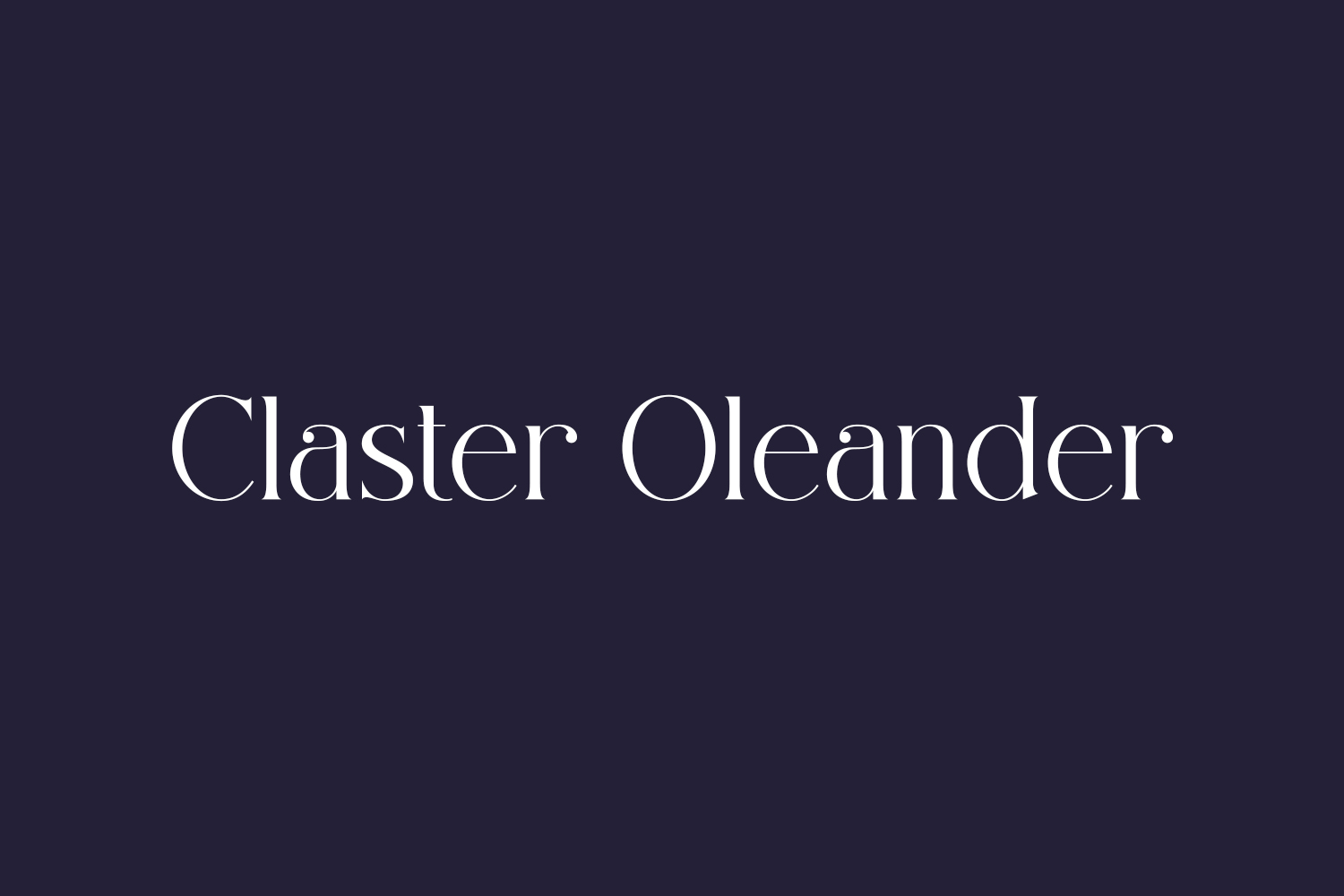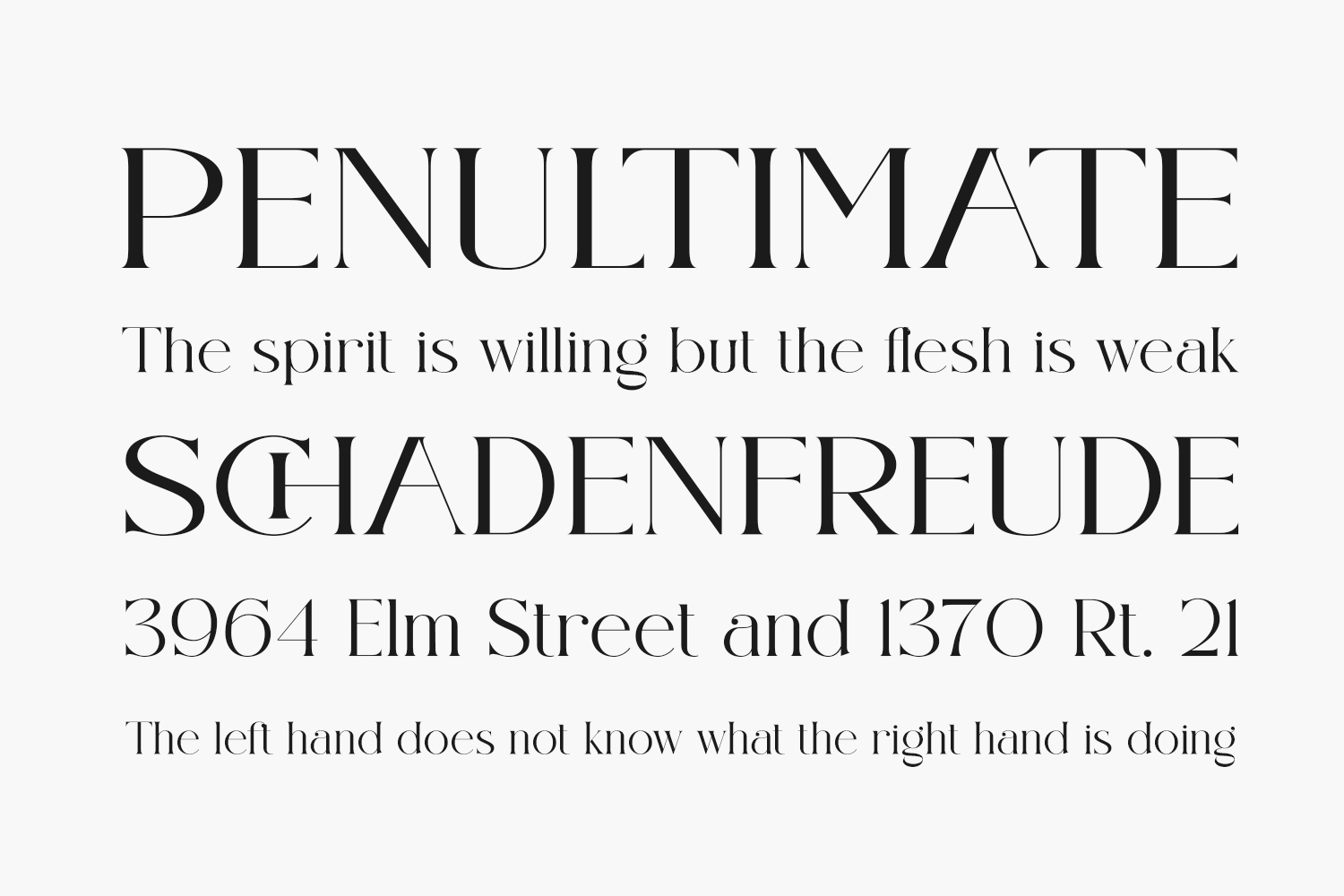
Claster Oleander Free Font Family is a grogeous duo font (serif and script). It is PUA encoded which means you can access all of the amazing glyphs and ligatures with ease. Claster Oleander Free Font Family was designed by ToniStudio and is free for personal use only. Please purchase the full version for commercial use.
Claster Oleander Regular The quick brown fox jumps over the lazy dog
Claster Oleander Script The quick brown fox jumps over the lazy dog